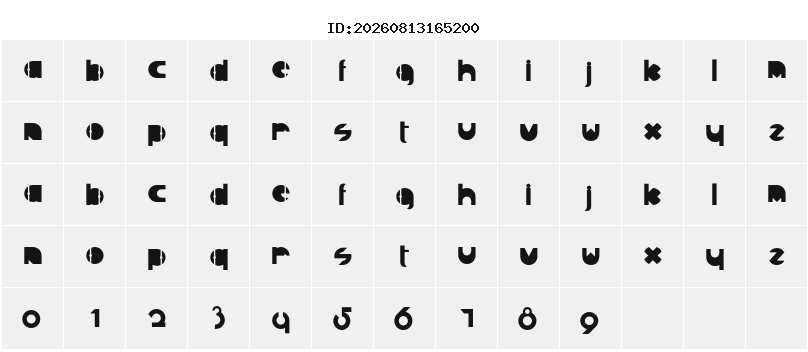
R Judas Sans Preview
• Font Name: R Judas Sans
• Full Font Name: RJudasSans
• PostScript Name: RJudasSans
• Designer: Afonso Negromonte, Daniela de Morais, Danilo Crispim, Reno Beserra e Eduardo Novais
• Manufacturer: Afonso Negromonte, Daniela de Morais, Danilo Crispim, Reno Beserra e Eduardo Novais
About R Judas Sans.otf
R Judas Sans.otf is a modern, elegant sans-serif font designed for ultimate readability and visual harmony. Perfect for branding, headlines, web design, and print materials.